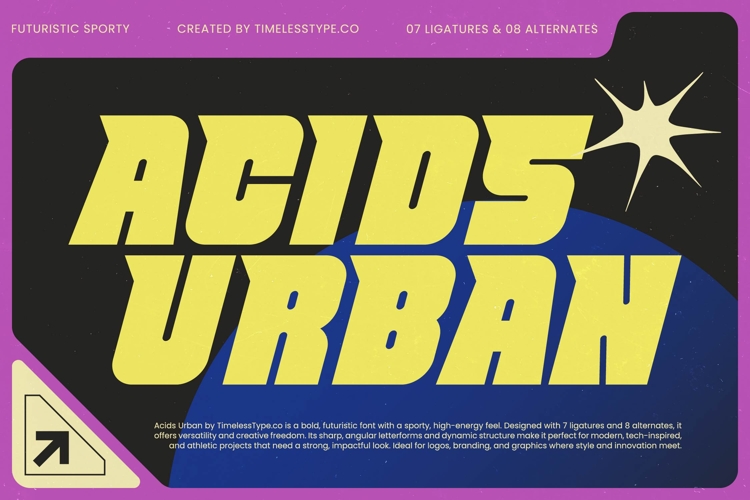
Acids Urban Italic - Futuristic Sporty Display Font Sans
Acids Urban Italic - Futuristic Sporty Display Font Sans Serif. This aggressively slanted display typeface is engineered for immediate visual impact, blending the raw power of urban aesthetics with the precision of futuristic design. Its remarkably heavy weight and dynamic italic structure communicate rapid movement and powerful presence, making it the definitive choice for projects demanding both momentum and modern authority.